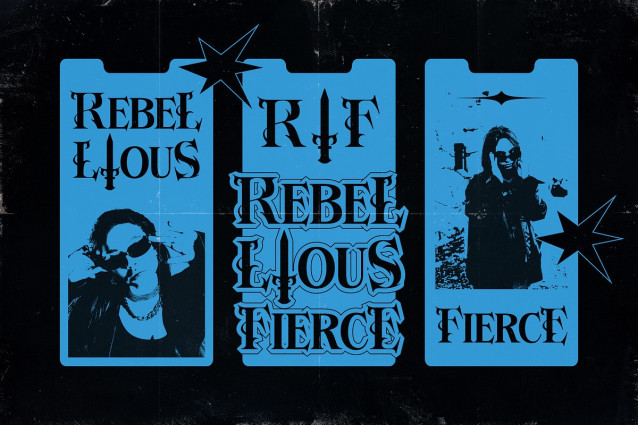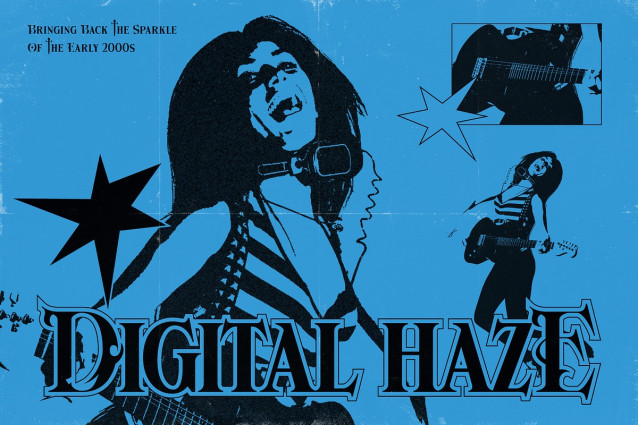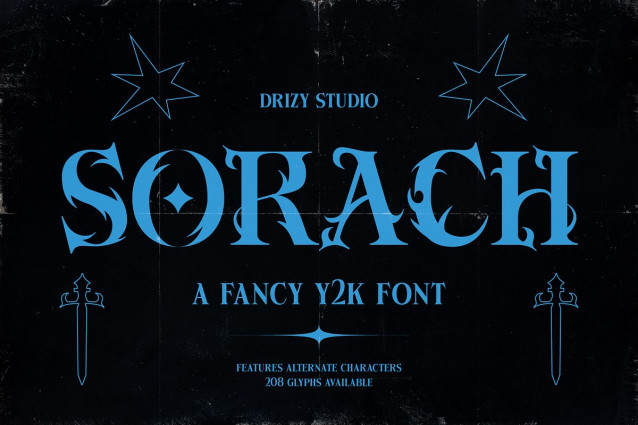
Sorach Font
Sorach Font is a bold and flashy graffiti Y2K font that oozes attitude. With wild curves, urban edge, and futuristic flair, it brings early 2000s street style straight to your designs. Perfect for posters, album covers, fashion branding, or any project that needs loud, rebellious vibes with a digital twist.